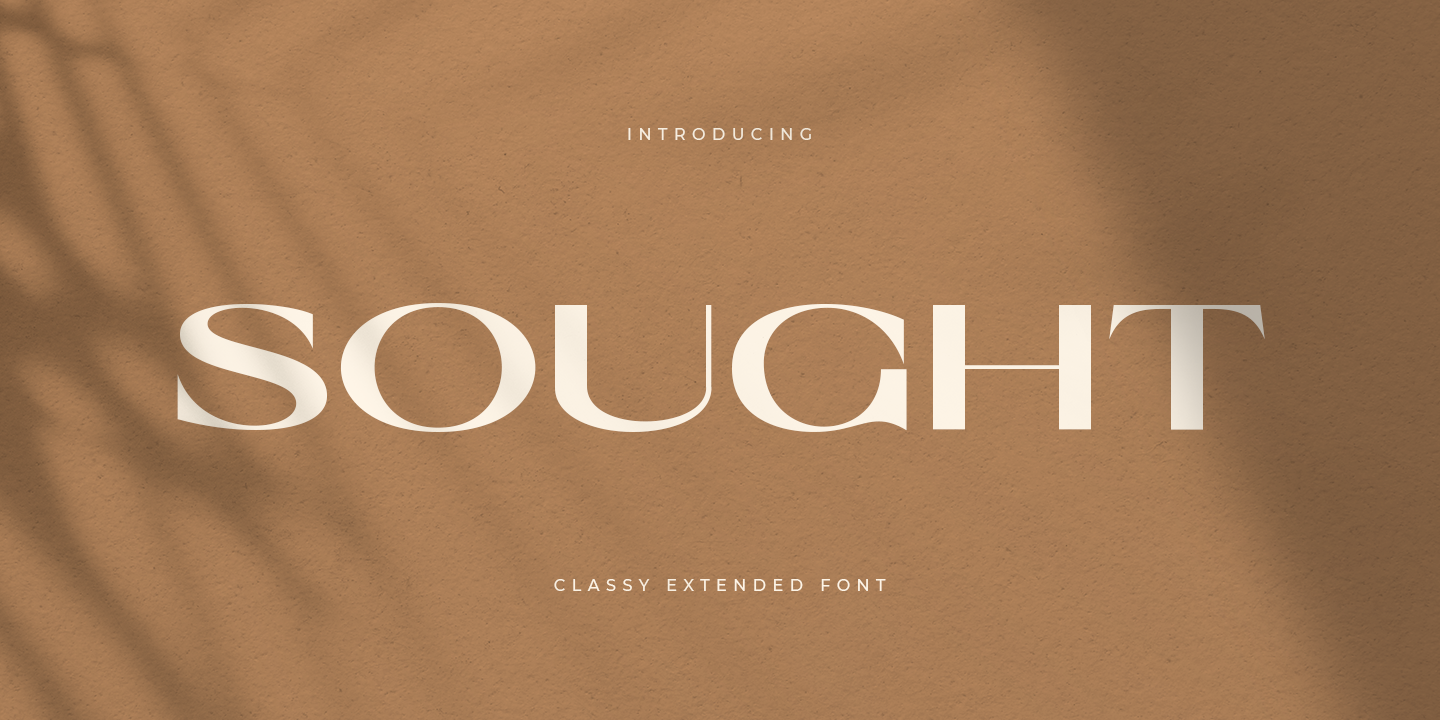
Sought Font is a meticulously crafted and exceptionally refined typeface, perfectly suited for projects that demand a sense of exclusive sophistication, timeless elegance, and undeniable desirability. Imagine it gracing the luxurious branding for high-end fashion houses, adding an authoritative and distinguished touch to prestigious cultural publications, or providing a captivating aesthetic for bespoke product packaging and fine art catalogs. It's also an excellent choice for crafting memorable headlines for discerning audiences, designing unique invitations for exclusive events, or bringing a polished, authoritative feel to editorial layouts and upscale digital platforms. If you're looking to convey prestige, quality, and an undeniable sense of classic excellence, Sought Font is an outstanding selection.
What makes Sought Font so exciting? It’s its unparalleled ability to combine a commanding visual presence with superb readability, resulting in a font that feels both substantial and gracefully versatile. This font often features impeccably balanced letterforms, precise detailing, and a sophisticated presence that gives it an undeniable charisma and visual richness. Despite its often formal or period-inspired flair, Sought Font is meticulously designed to maintain excellent legibility across various sizes and mediums, ensuring your message is communicated beautifully and with a distinguished tone. Designers will appreciate its versatile application in lending an air of established credibility and artistic integrity to any project, ensuring that your visuals resonate with both contemporary taste and a timeless sense of grand beauty.
The Sought Font family is typically designed with a comprehensive range of weights and styles to provide maximum flexibility for designers. You can generally expect to find numerous variations such as Light, Regular, Medium, SemiBold, Bold, and Black, often accompanied by matching italic versions for each. This extensive family ensures that Sought Font can be used to create sophisticated typographic hierarchies, maintain consistent branding across diverse mediums, and offer flexible design solutions for both print and digital environments. Discover the unwavering elegance and commanding style of Sought Font Free Download for your next design masterpiece.